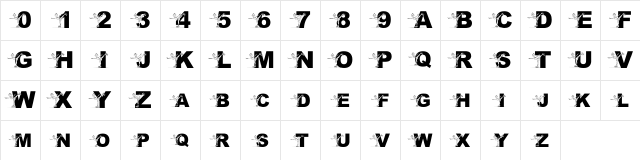
pf_ice_skate Regular
Design Context for pf_ice_skate Typeface
pf_ice_skate is a composed and adaptable typeface that performs quietly and consistently across a wide range of design contexts.